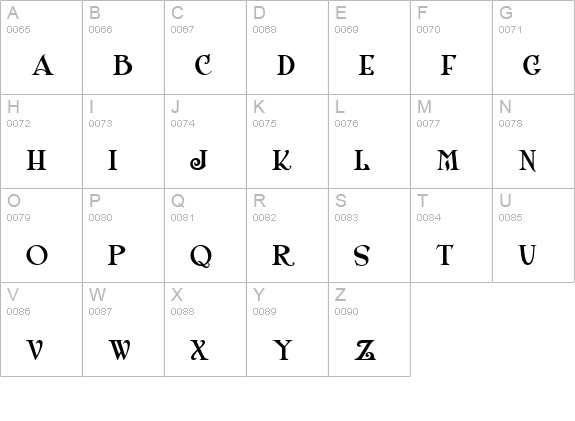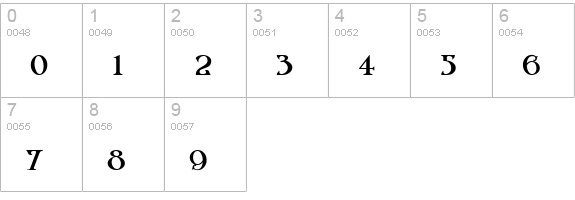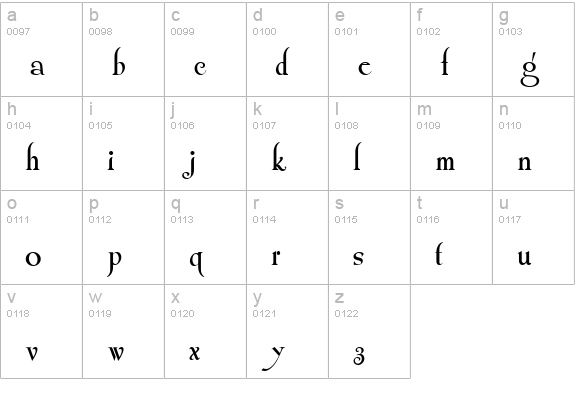
Introducing ShangriLaNF, a captivating and enchanting font that will transport you to a world of imagination and beauty. This unique typeface is the epitome of elegance, with its graceful curves and intricate details. Its flowing lines and delicate serifs exude a sense of tranquility and harmony, making it perfect for projects that require a touch of sophistication. But what sets ShangriLaNF apart from other fonts is its marvelous feature of being freely available. Yes, you heard it right! This magnificent font can be downloaded for free at FontsMarket.com. Whether you are a professional designer, a student, or simply someone who appreciates the art of typography, ShangriLaNF offers you the opportunity to bring your creative visions to life without any cost. Imagine the possibilities with ShangriLaNF: from elegant wedding invitations and luxurious branding projects to captivating book covers and mesmerizing posters, this font will elevate any design to new heights. Its versatility allows it to be equally at home in both digital and print mediums, ensuring that your creations leave a lasting impression. ShangriLaNF embodies the spirit of discovery and adventure, just like the mythical utopia it is named after. Its timeless beauty and effortless charm make it a font that is sure to captivate and inspire. So, why wait? Embark on a journey of creativity and download ShangriLaNF for free at FontsMarket.com today. Unleash your imagination and let this exquisite font transport you to a world of endless possibilities.